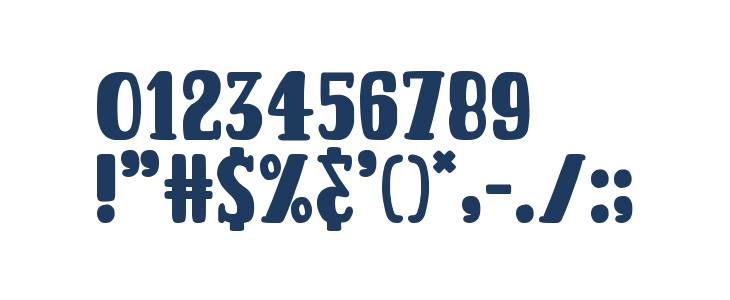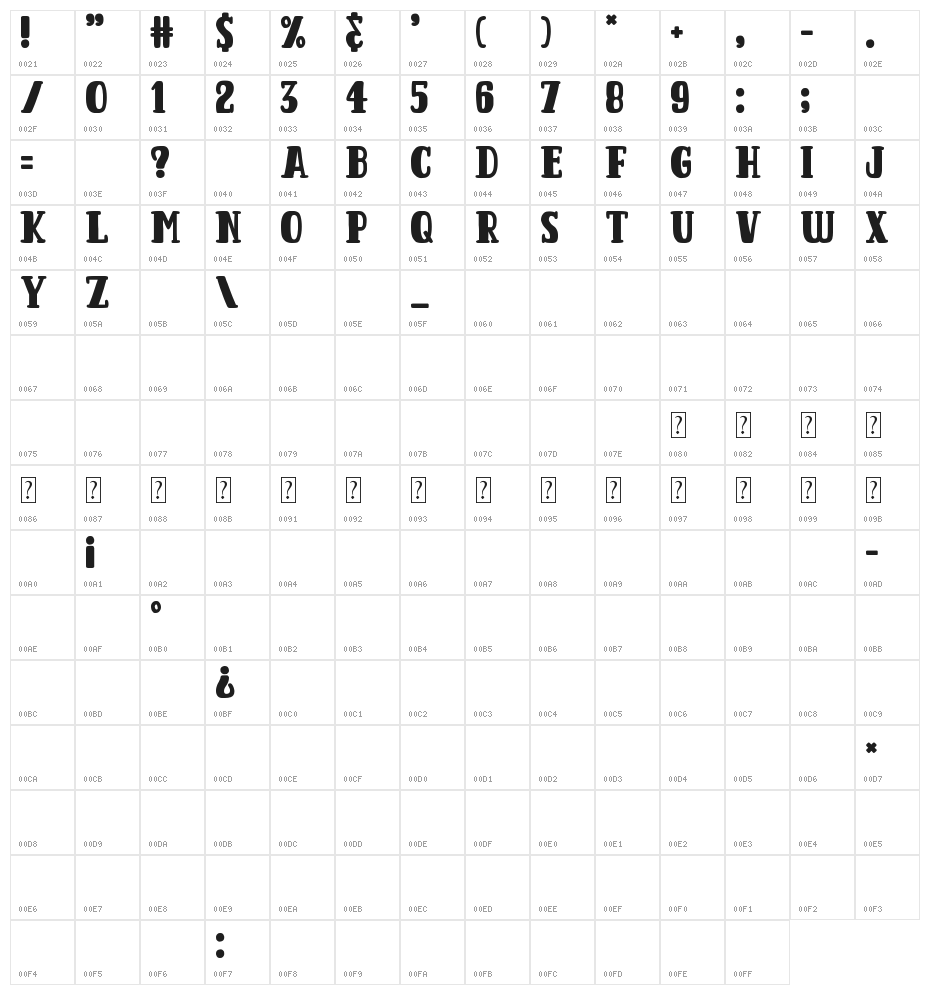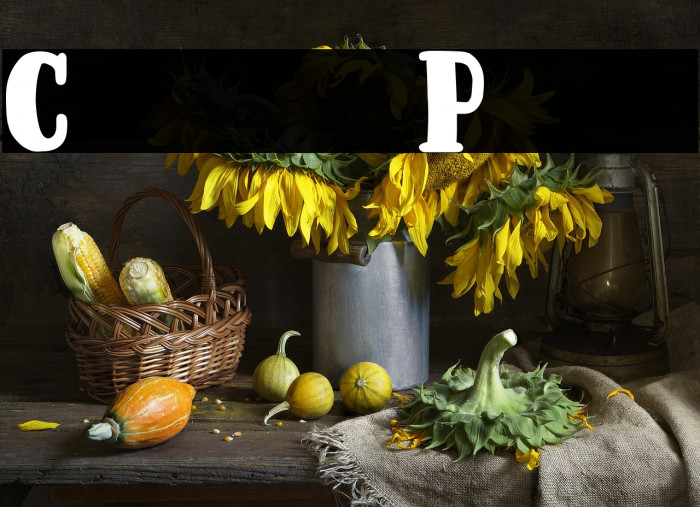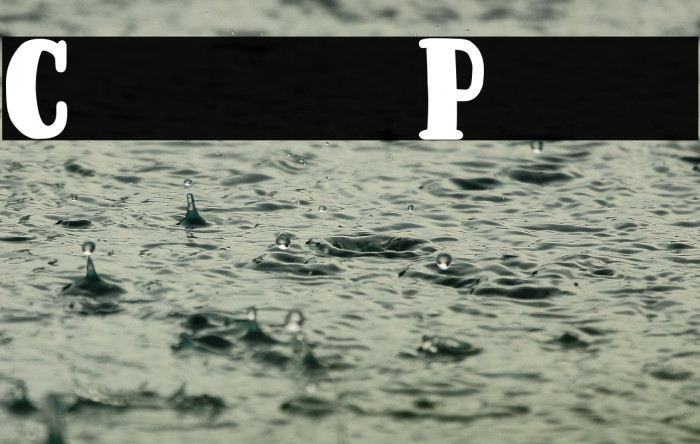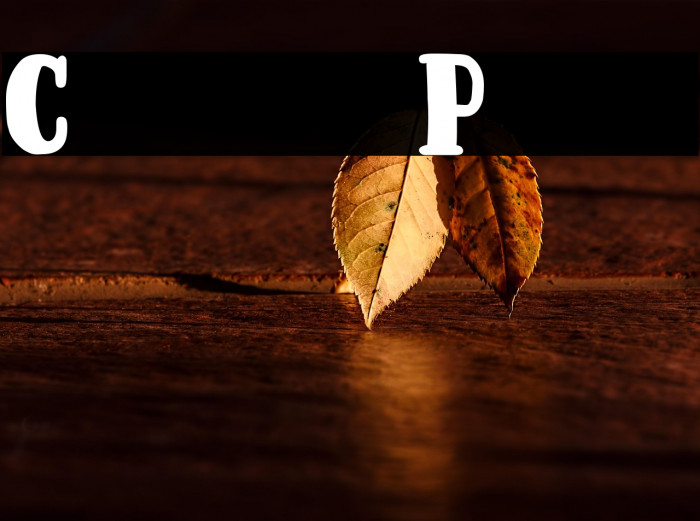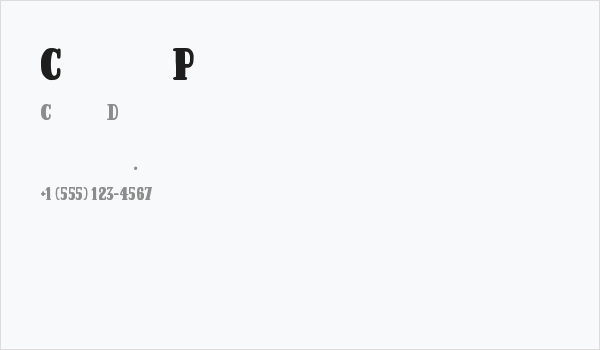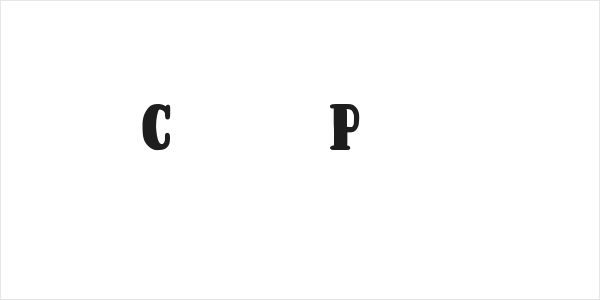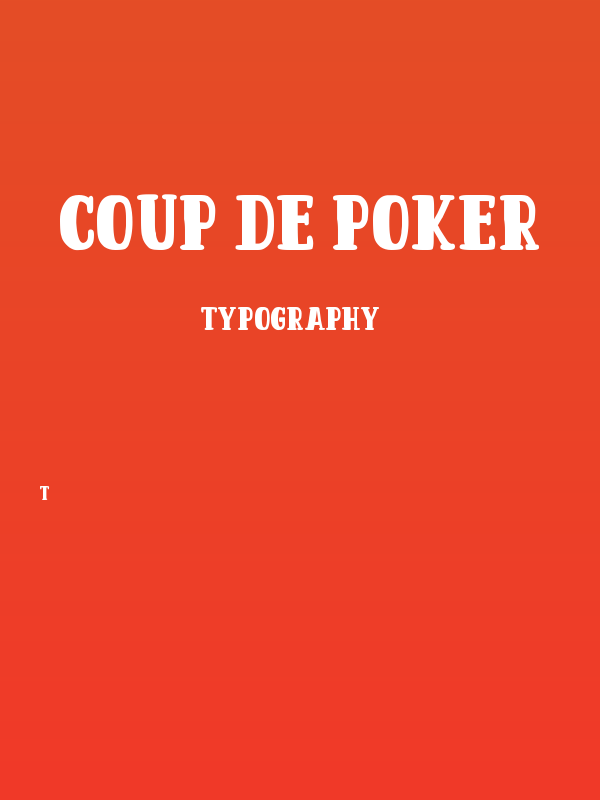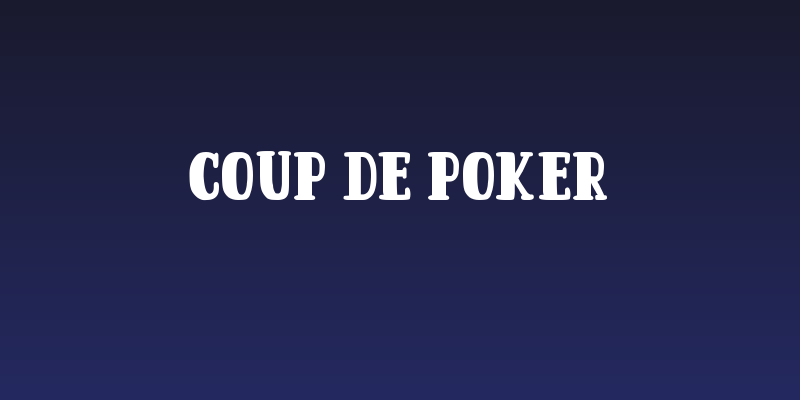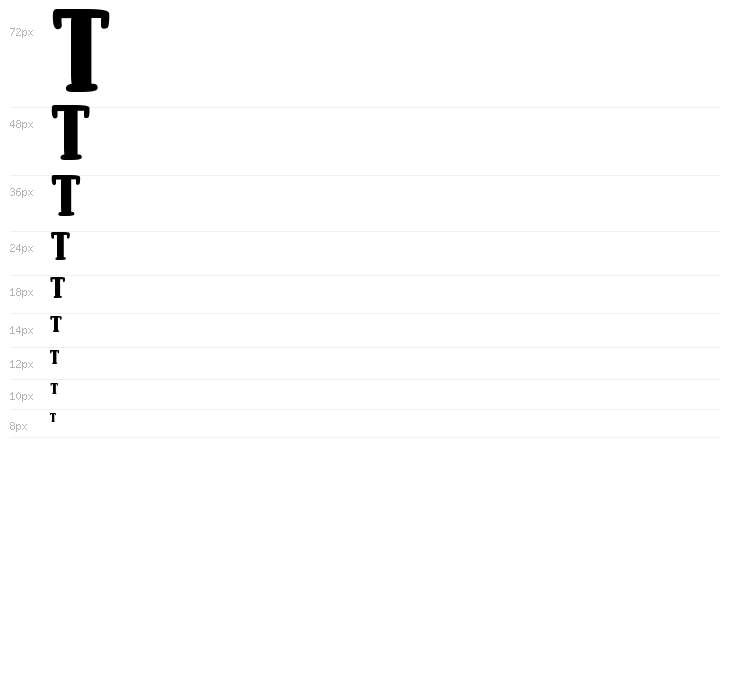
Coup de Poker Font
Coup de Poker Description
This font features a bold, decorative style with a playful and vintage flair. The uppercase letters are characterized by thick strokes and rounded edges, giving them a robust and friendly appearance. The numerals and special characters maintain this boldness, ensuring consistency across all glyphs. The font's design includes subtle serifs that enhance its classic look while maintaining a modern touch. Its unique style makes it stand out, making it suitable for eye-catching designs.